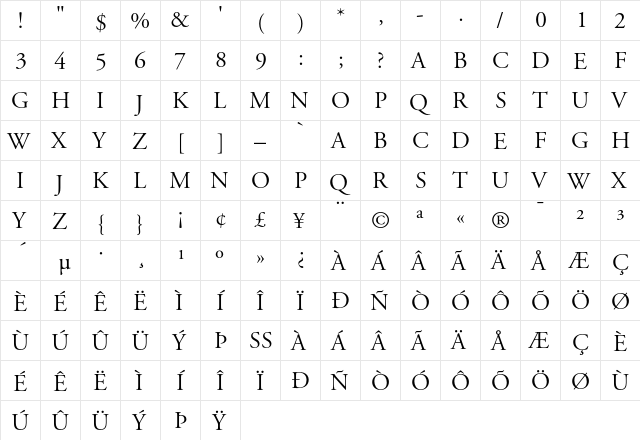
Adobe Garamond Titling Capitals
Design Context for Adobe Garamond Typeface
Adobe Garamond takes a measured approach to typography — its balanced proportions and neutral character make it a reliable workhorse for both digital and print work.
Pro Tip: Use Adobe Garamond in both headline and body roles to test its range before committing to a single application.